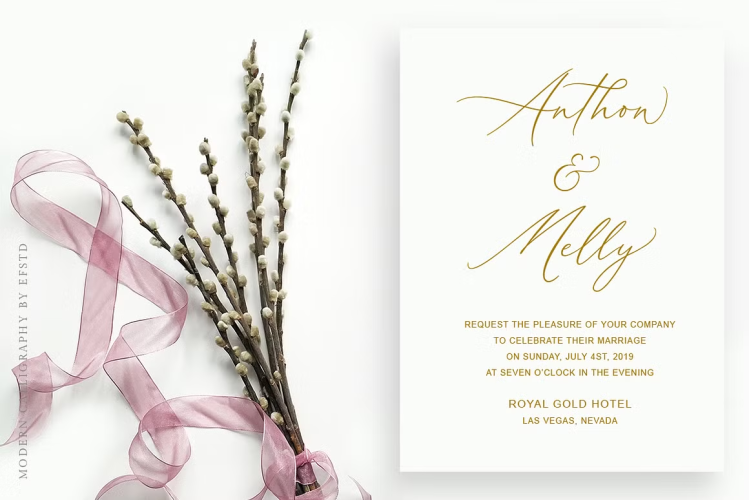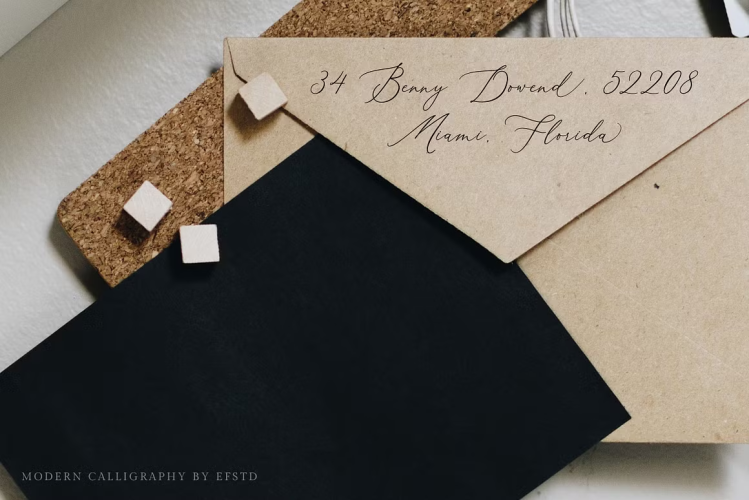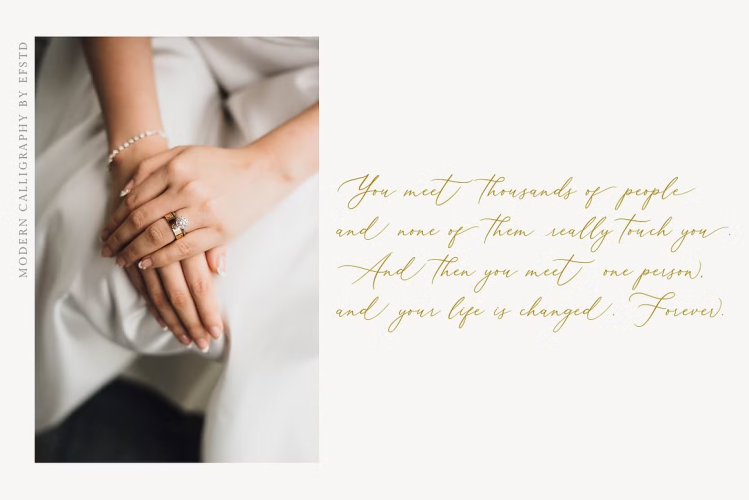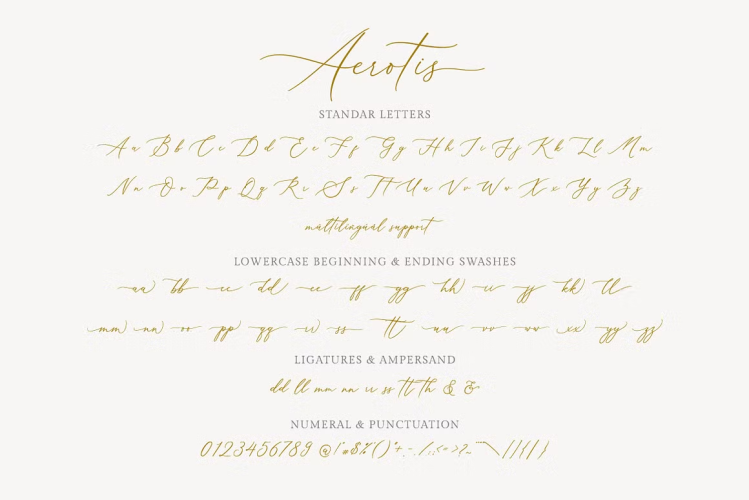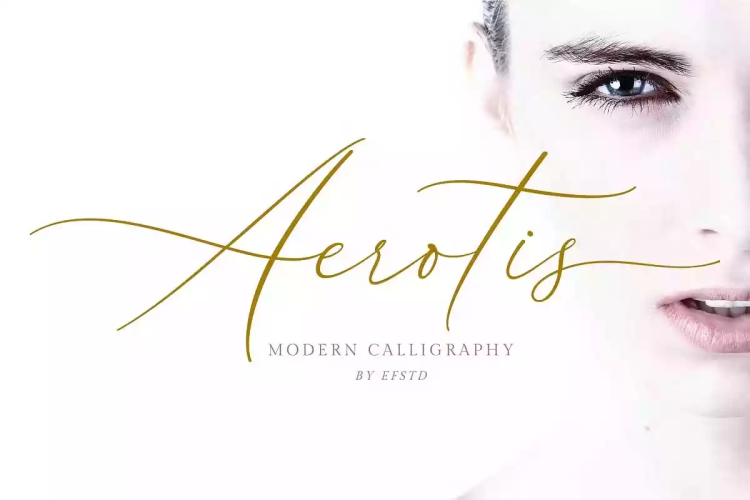
Aerotis Font
Introducing Aerotis, a classy modern calligraphy font perfect for invitations, branding, websites, red wine labels, and editorial designs. It includes all upper and lower case letters, multilingual support, punctuation, binding, and initial and final swash. Everything can be easily accessed using software that supports OpenType, such as Adobe Indesign, Adobe Illustrator CS, Adobe Photoshop CC, and Corel Draw.
Where Aerotis Font works best
Invitations & certificates
Aerotis Font lends ceremony to wedding suites, certificates and formal announcements.
Luxury branding
Calligraphic scripts work for boutique hotels, jewellery and bridal brands.
Quotes & wall art
Popular for printable quotes, wall art and greeting cards.
What is Aerotis Font good for?